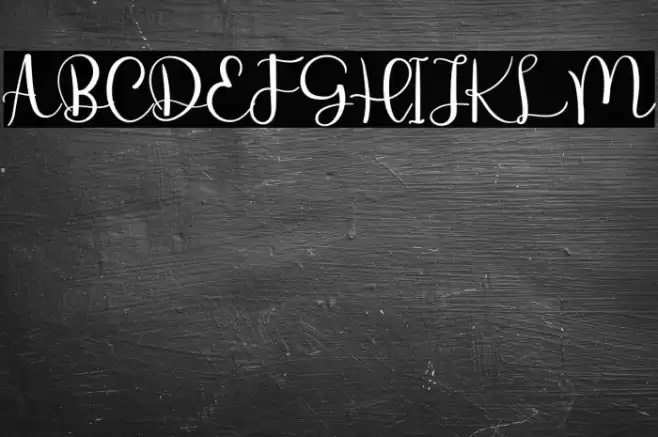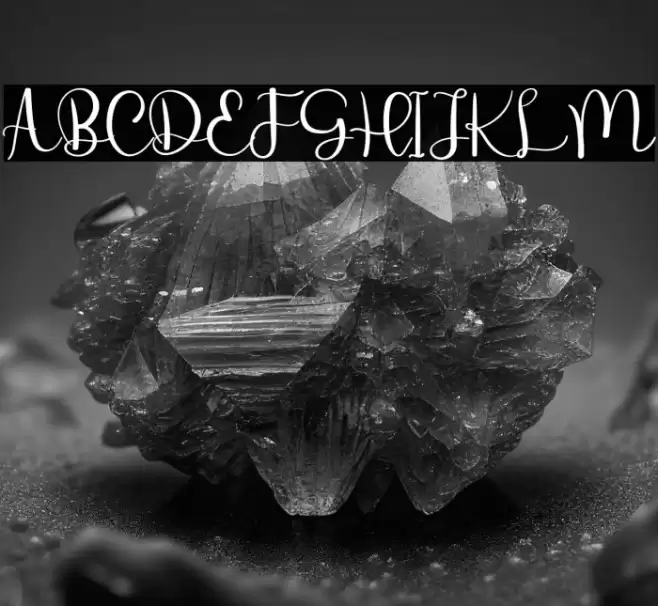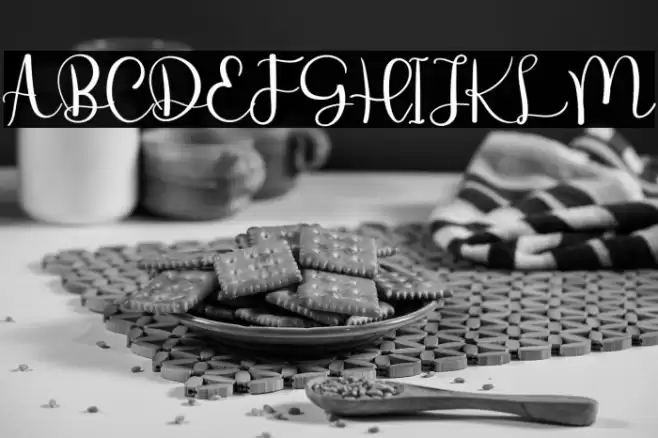
Behind Scenes Font
Behind Scenes Description
This font features a whimsical and flowing script style, characterized by its elegant, looping letterforms. The uppercase letters are tall and slender, with distinctive flourishes that add a touch of sophistication. The lowercase letters maintain a consistent flow, connecting smoothly to create a harmonious appearance. The numerals are bold and clear, contrasting slightly with the more delicate script of the letters. Special characters are designed with the same playful elegance, making them suitable for creative projects. The overall design is both artistic and readable, making it ideal for decorative purposes.
A whimsical script font with elegant, flowing letterforms and playful flourishes from Uncategorized fonts.
- Font: Behind Scenes
- Proposed Projects: Ideal for wedding invitations, greeting cards, branding, and artistic projects requiring a touch of elegance.
- Use Case: Logos, Invitations, Artistic projects